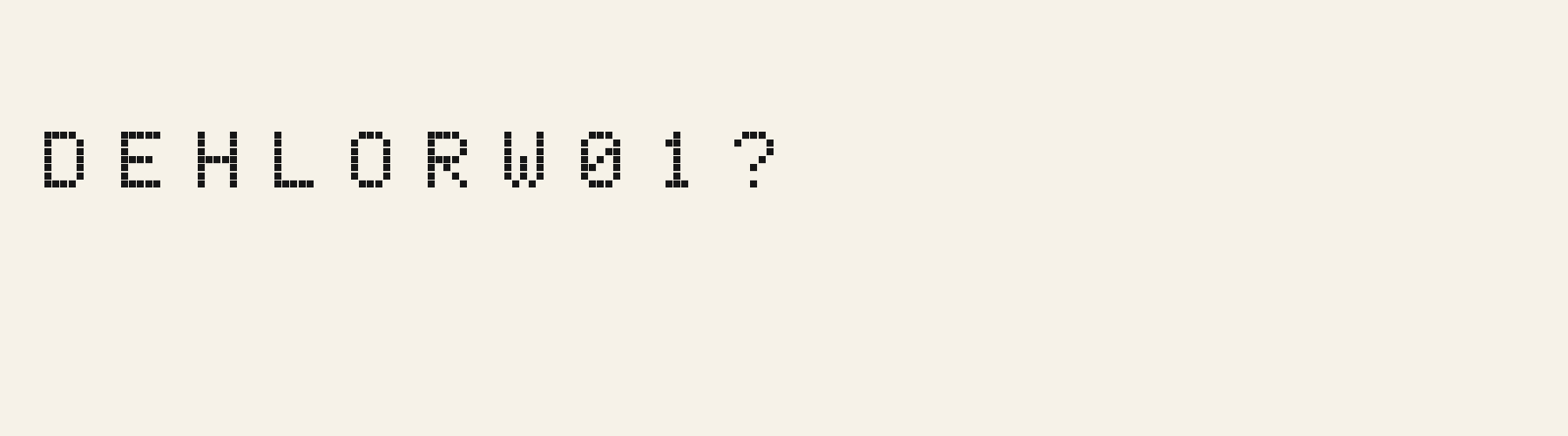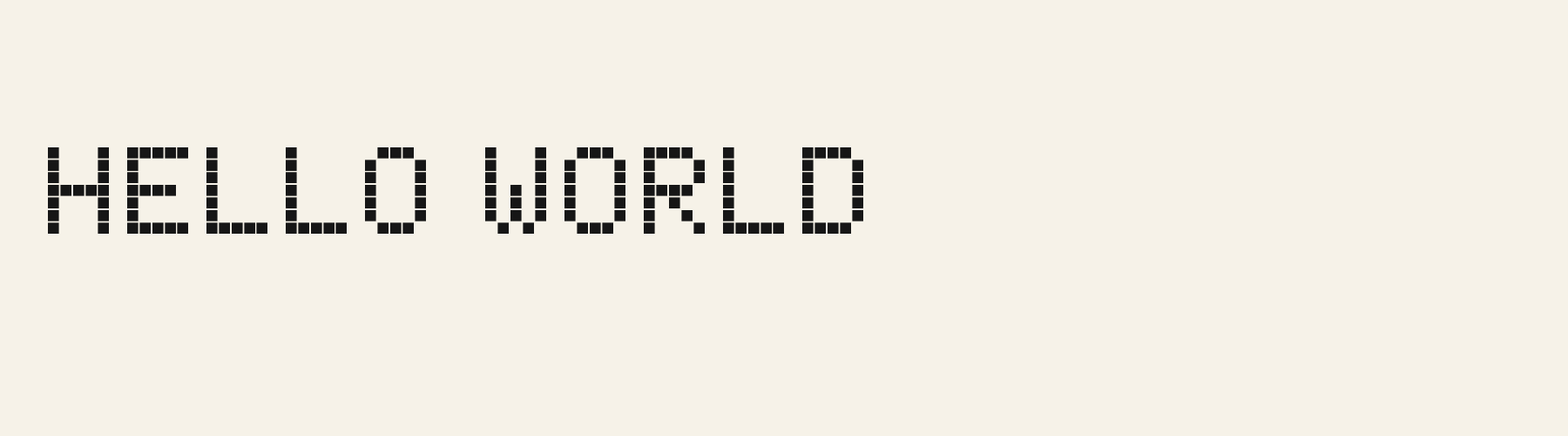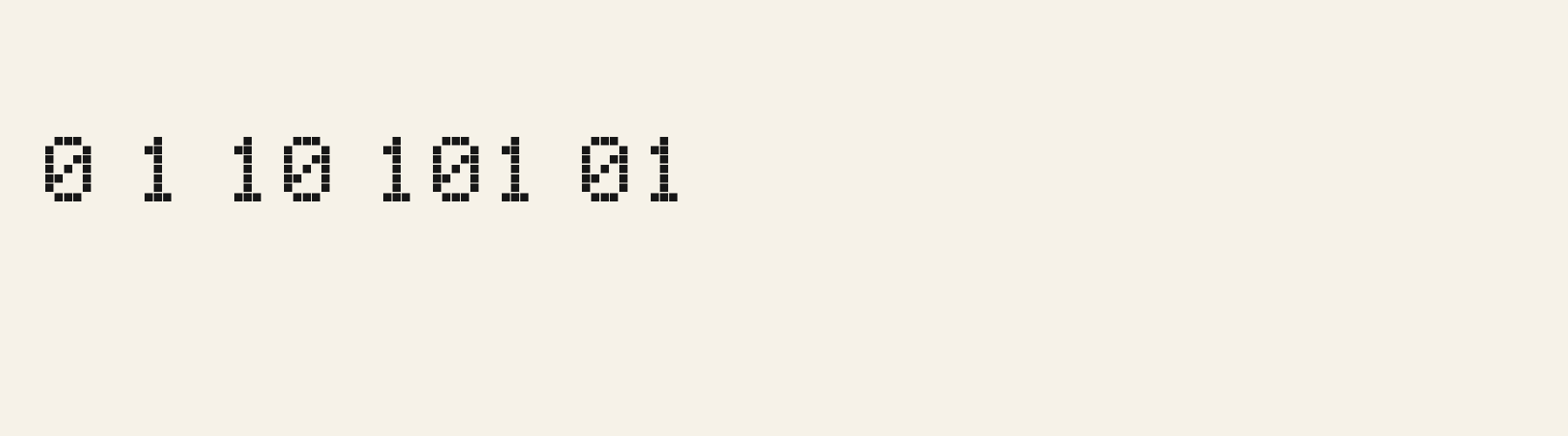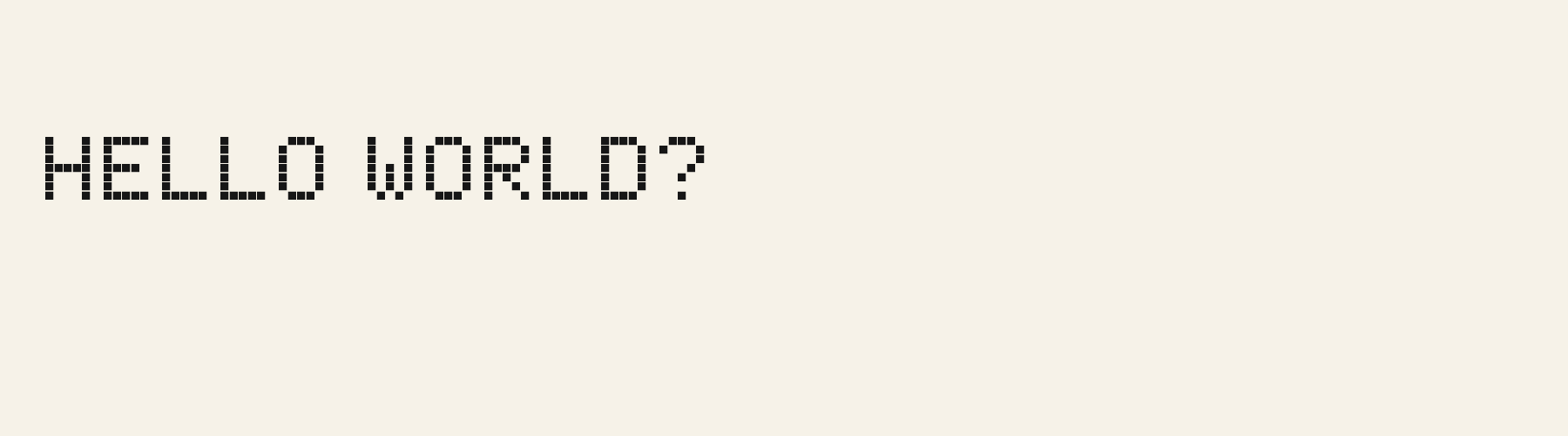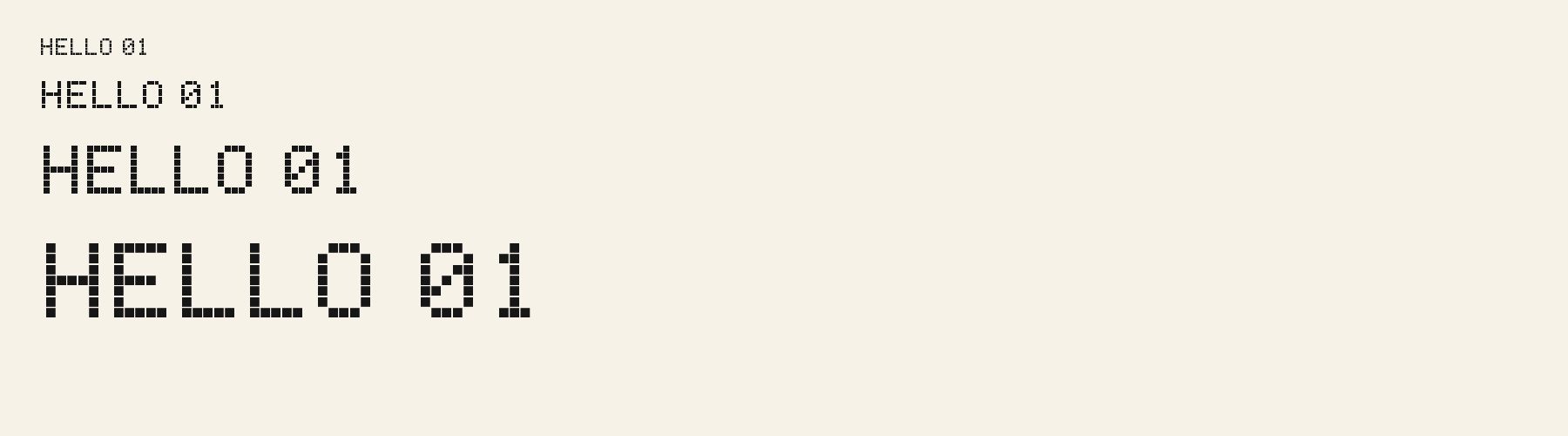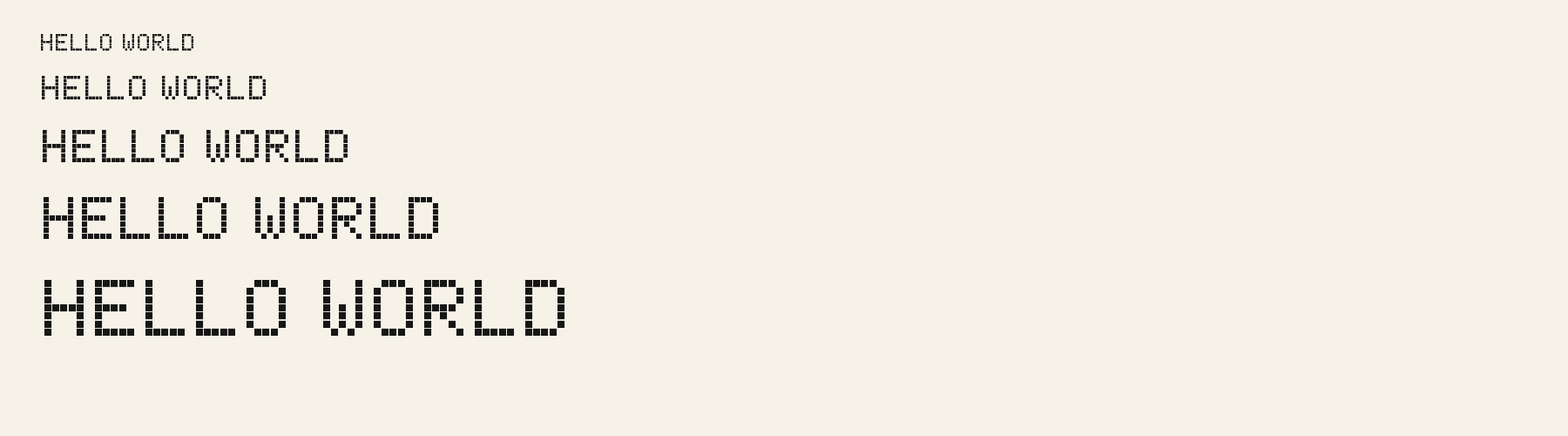
Pixel Arcade Bold Gapped Tile Scoreboard Font
Pixel Arcade Bold presents upright capitals as chains of square tiles, with fine gaps running through both straight strokes and turns.
Gapped Tile Scoreboard Letterforms
Pixel Arcade Bold presents upright capitals as chains of square tiles, with fine gaps running through both straight strokes and turns. The O is tall and compact, with short flat ends and inset corners rather than a smooth curve. The R carries a small upper bowl above a leg that descends in separate square steps. The W places a shorter central stroke between tall outer stems, making its lower turns especially distinctive. Stroke thickness stays visually even, while the open counters keep the lettering relatively airy. The result feels mechanical and game-like, with a clear scoreboard rhythm.
Check O against zero in your actual Latin wording, since the specimen distinguishes zero with an internal diagonal. Inspect R and W as the preview shrinks, watching their tile gaps. Test accented Latin and any other scripts separately; these samples establish their appearance only for the characters shown.
Try this face for short headings, with a plain sans serif for explanations and supporting labels. Its interrupted strokes create a strong texture; continuous companion strokes could give longer passages a calmer rhythm.
Compare smaller and larger previews to check whether the gaps between tiles remain visible. Watch the staircase in R and the bottom turns of W, where shrinking the lettering can change how clearly the separate squares register.
Pixel Arcade Bold separates its strokes into square tiles, with plain stem endings and tall, compact loops. Choose it when the visible gaps and restrained letter shapes should carry the game display character.
Retro Byte Slab has connected strokes, projecting slab feet on letters such as H and L, and more angularly rounded O shapes. Try it when the lettering calls for a more solid silhouette with pronounced serif details.
Poster. The separated square tiles give a tournament poster a game display character, while the stepped R adds a distinctive detail. EXTRA LIFE
T-shirt print. Plain stem endings and tiled strokes give a short shirt slogan a crisp, graphic rhythm. LEVEL UP
Video thumbnail. The repeated square modules give a short thumbnail title a consistent texture, with open letter interiors balancing the dark strokes.
The lowercase is as tall as the capitals: its x-height measures 100% of the cap height, level with the tallest of the 13 pixel fonts. Ascenders on b, d, h, k and l line up with the capitals (100% of their height), and g, j, p, q and y barely drop below the baseline. Pixel Arcade Bold runs 13.6% wider than the median for pixel fonts: an average lowercase letter, spacing included, is 92.1% as wide as the capitals are tall (an average capital, 92.1%). The o is an upright oval, 0.71 times as wide as it is tall, and every capital has the same width. O stands exactly as tall as H and sits on the baseline, with no overshoot.
The letters stand upright, leaning less than 2.5° either way. Vertical stems measure 12.7% of the cap height, lighter than 4 of the 6 other pixel fonts. Ink covers 26.4% of each lowercase letter's box (its advance width by the cap height), lighter than 7 of the 12 other pixel fonts. Strokes keep one thickness in every direction: the sides of o and O measure the same as their tops and bottoms.
Its 159 characters include 116 Latin letters, plus 43 figures, punctuation marks and symbols; 64 of the Latin letters are accented or special forms beyond A to Z. The word space measures 47.9% of the cap height, and the blank space either side of a lowercase letter takes up 23% of its width. The font carries no kerning, so spacing comes from each letter’s own side bearings. All ten figures share one width, so columns of numbers line up.